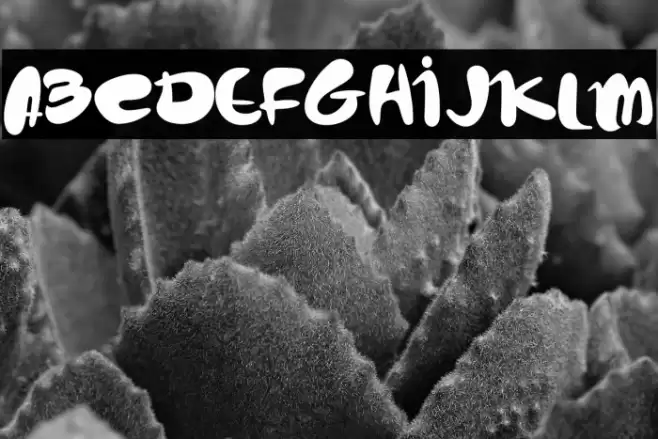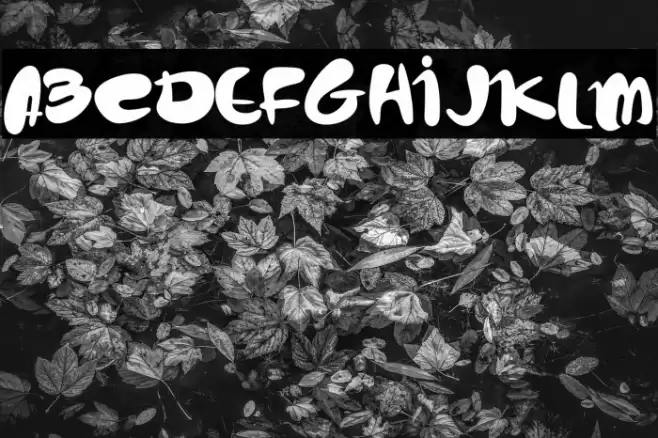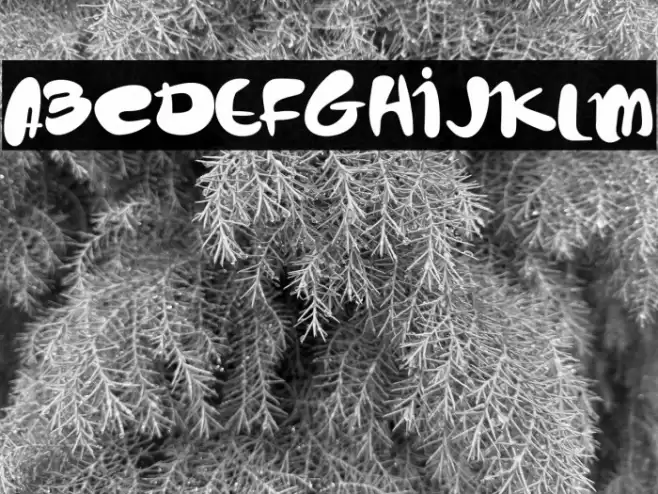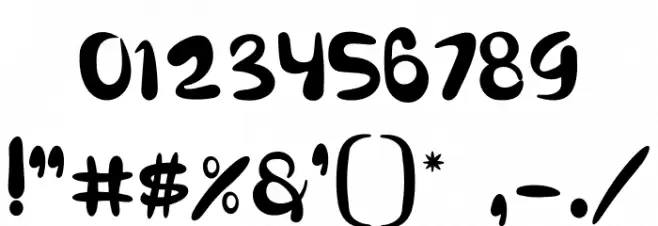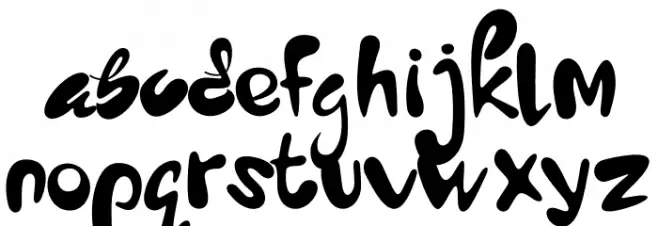
cute peppy Font
cute peppy Description
This playful and energetic font features bold, rounded characters with a whimsical flair. The letters are slightly irregular, giving them a hand-drawn appearance that adds to their charm. The uppercase and lowercase letters maintain a consistent style, with exaggerated curves and a bubbly aesthetic. Numbers and special characters follow the same lively design, making them stand out with their unique shapes. The font's overall look is both fun and approachable, perfect for projects that require a touch of personality and creativity.
A playful, bold font with rounded, whimsical characters from Cartoon fonts.
- Font: cute peppy
- Proposed Projects: Ideal for children's books, playful branding, party invitations, and creative posters.
- Overall Style: Playful, Whimsical